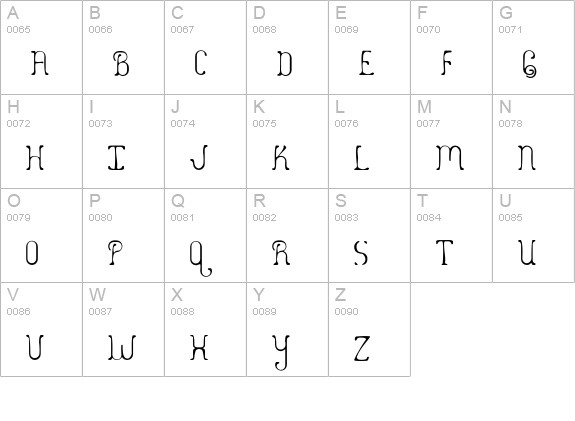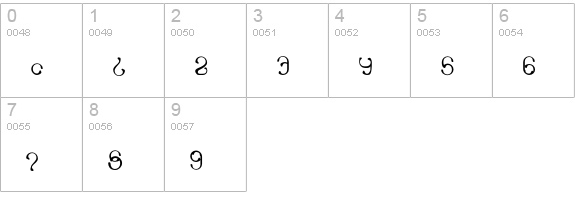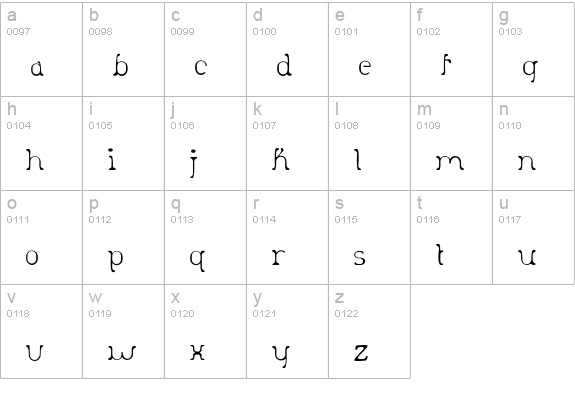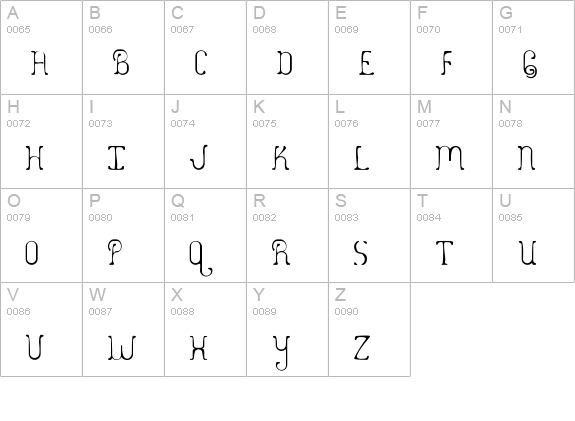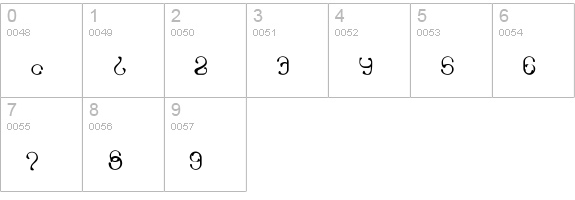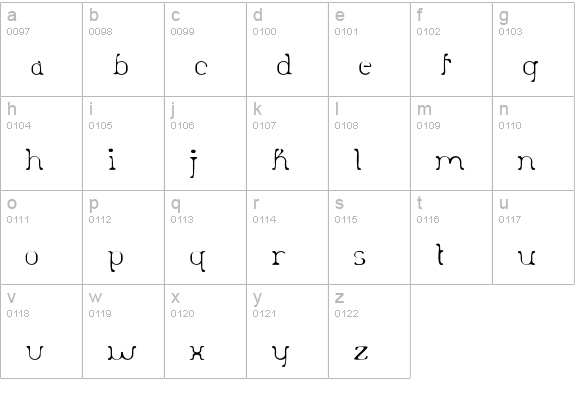
Desultory-A Font Details
Desultory-A font is a whimsical and playful typeface that exudes a carefree and casual vibe. With its charming and irregular letterforms, this font is perfect for adding a touch of spontaneity to your designs. The free-spirited nature of Desultory-A makes it ideal for projects that require a relaxed and informal feel. This unique font is freely available to download at FontsMarket.com, making it easily accessible for all your creative endeavors. Whether you're working on a fun poster, a quirky logo, or a lighthearted invitation, Desultory-A font will bring a sense of freedom and creativity to your designs. Embrace the playful spirit of Desultory-A and let your imagination run wild with this delightful typeface.